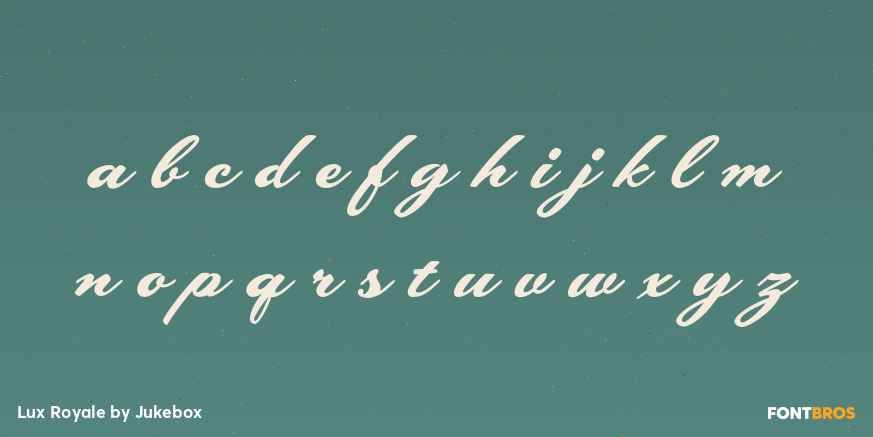
Lux Royale
Font Family by Jukebox
Lux Royale is a stylish script font from Jukebox that is classy and sophisticated. It seems to fit with upscale soir